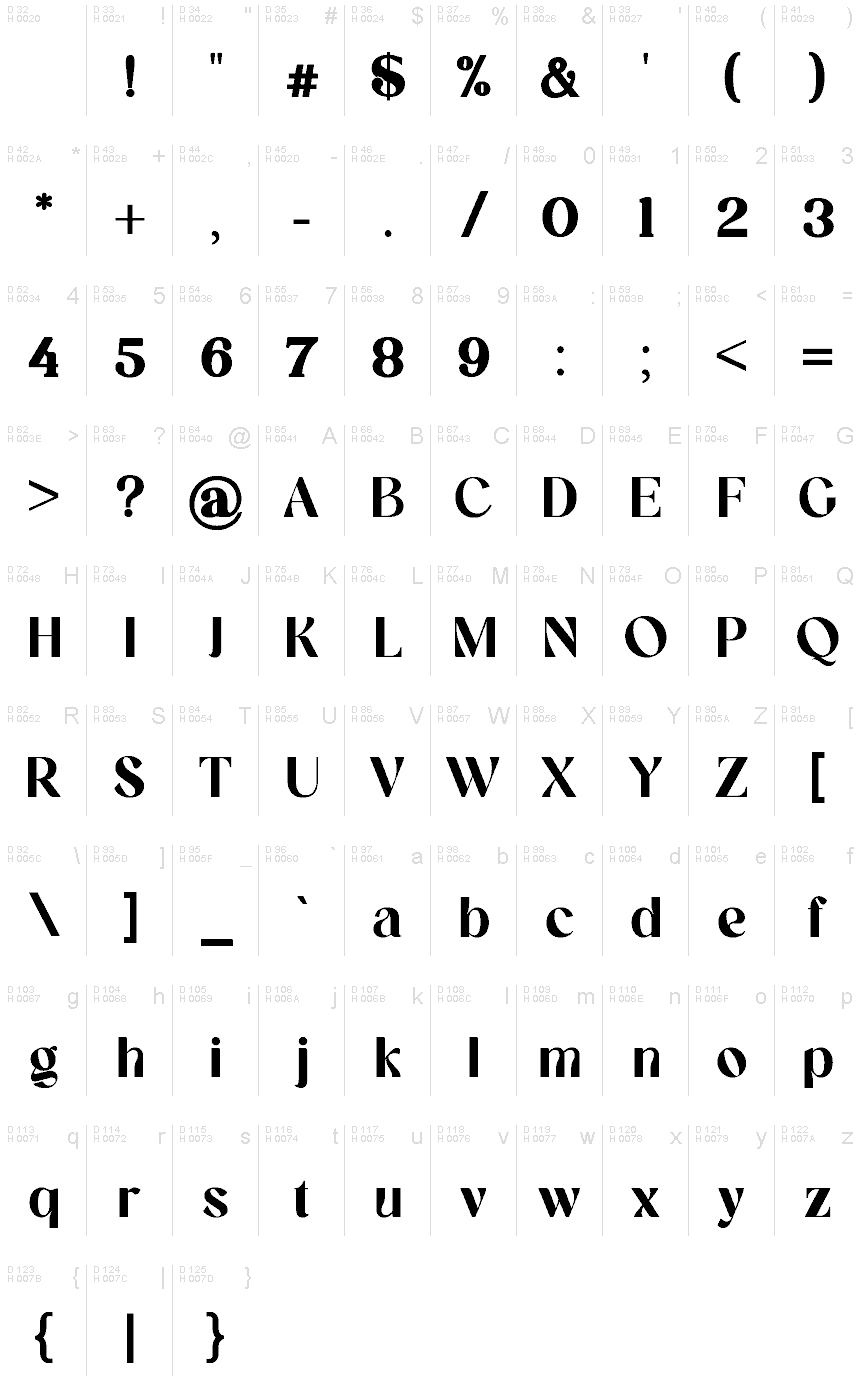
MEWATONIA Regular
Mewatonia font from UI Creative is a modern serif typeface that exudes elegance and sophistication. It has a dramatic presence, which it achieves through high contrast in its characters. Its letters are generous, and they take up the space needed to be seen as clear and visible by the readers. Curvy shapes mix with sharp serifs which balance out every line to impart an artistic style.
All in all, Mewatonia will perfectly fit on wedding invitations or greeting cards of any potential occasion. Book covers also benefit from being styled in this text along with magazine headings, posters, or any print or digital advertisement.